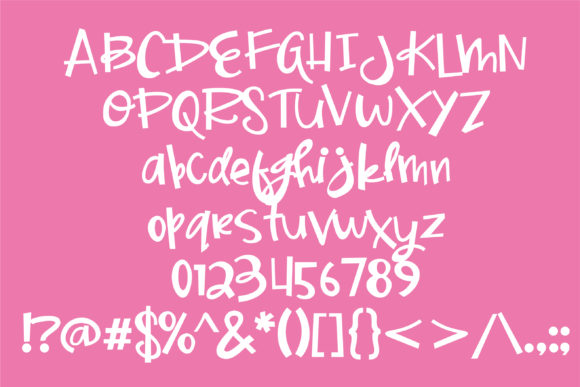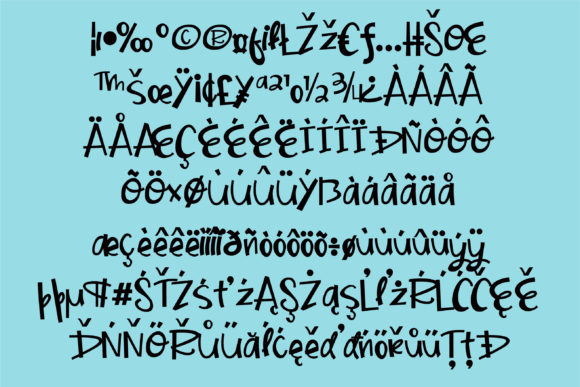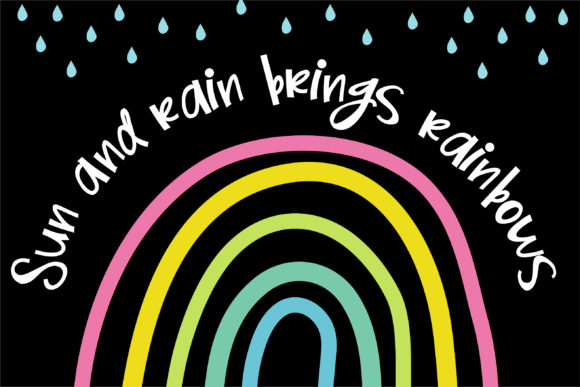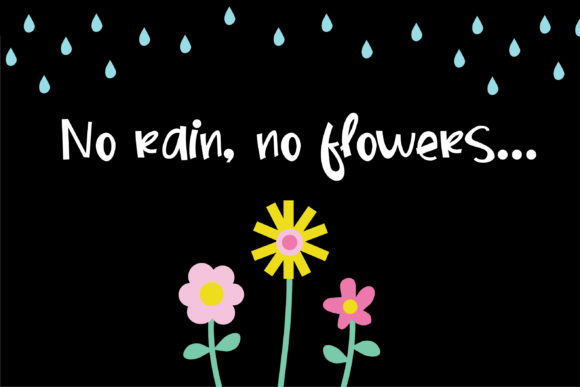
HomeScript FontsShooby Doowap Shebop Font Script Fonts Shooby Doowap Shebop Font FacebookXPinterestWhatsApp Shooby Doowap Shebop Font Poster 2 Shooby Doowap Shebop Font Poster 3 Shooby Doowap Shebop Font Poster 4 Shooby Doowap Shebop Font Poster 5 About Shooby Doowap Shebop Font This casual hand-crafted quasi-script, has cute mis-sized lettering and a bouncy baseline. DOWNLOAD ON CREATIVE FABRICAThis font is sold and delivered by Creative Fabrica. Font Canyon may earn a commission if you buy through this link. People also explored Sellia Font Fatya Font BloodStone Font Red Bella Canvas 3001 T Shirt Mockup Big Dots Font Pyramisa Font Agam Tuha Hellow Font Winter Memory Font 332 0 TagsShooby Doowap Shebop Font Previous articleEnjoy Today FontNext articleVanilla Family Font LEAVE A REPLY Cancel reply Comment: Please enter your comment! Name:* Please enter your name here Email:* You have entered an incorrect email address! Please enter your email address here Website: Save my name, email, and website in this browser for the next time I comment. Personal Use Free My Shine Personal Use Free Read more about this font Frozdotre Personal Use Free Read more about this font Shelly Personal Use Free Read more about this font BD RatterBit Personal Use Free Read more about this font BLOG Using Fonts in Digital Marketing: Tips to Strengthen Your Brand Identity In the realm of digital marketing, every visual element plays a crucial role in shaping a brand's identity, and fonts are no exception. The... The 10 Best Handwriting Fonts to Add Personality to Your Designs Best Fonts for T-Shirt Design – Top 2025 Picks To increase your work productivity, choose the most readable fonts.